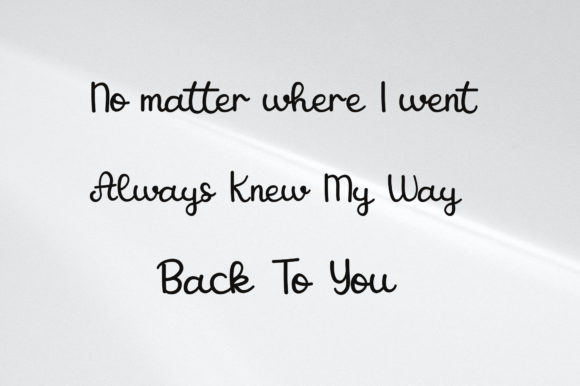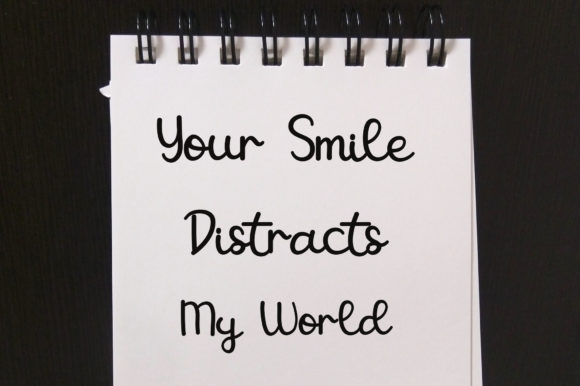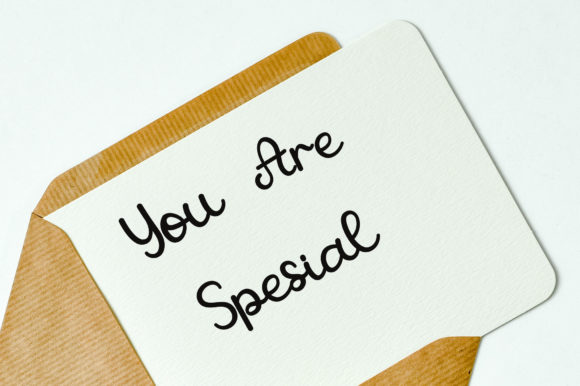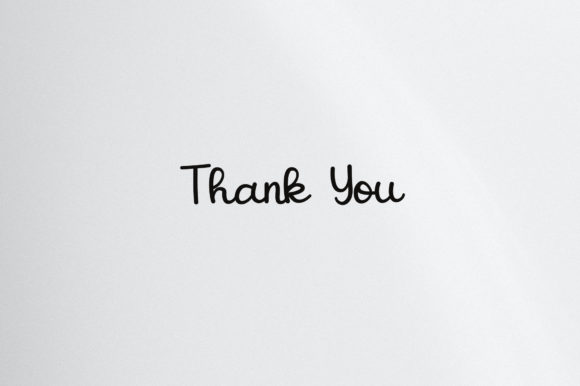
Discover the Charm of Angelina Font: A Sweet and Versatile Handwritten Delight
Are you on the hunt for a font that can add a touch of warmth and romance to your design projects? Look no further than Angelina Font, a beautiful, handwritten typeface that is sure to capture your heart. With its sweet, all-round, and flexible design, Angelina is the perfect choice for crafters and designers looking to infuse their work with a sense of joy and whimsy.
The Characteristics of Angelina Font
Angelina Font is a true gem in the world of typography. Its warm, romantic, and jolly design makes it an excellent choice for a wide range of projects, from wedding invitations and party decorations to branding and advertising materials. This font is designed to turn each of your project ideas into real works of art, and with its endless variations, you’ll have countless opportunities to experiment and explore.
One of the standout features of Angelina Font is its flexibility. Whether you’re looking to create a bold statement or a more subtle design, this font can adapt to your needs with ease. Its handwritten style gives it a personal and approachable feel, making it perfect for designers who want to add a touch of personality to their work.
The Benefits of Using Angelina Font
So, what makes Angelina Font so special? Here are just a few benefits of using this beautiful typeface in your design projects:
- Unique and eye-catching design: Angelina Font is a true standout in the world of typography. Its sweet and jolly design makes it an excellent choice for designers who want to create something truly unique and eye-catching.
- Endless variations: With Angelina Font, you’ll have countless opportunities to experiment and explore. Whether you’re looking to create a bold statement or a more subtle design, this font can adapt to your needs with ease.
- Perfect for a wide range of projects: From wedding invitations and party decorations to branding and advertising materials, Angelina Font is the perfect choice for a wide range of design projects.
- Easy to use and customize: Angelina Font is easy to use and customize, making it perfect for designers of all skill levels.
How to Use Angelina Font in Your Design Projects
So, how can you use Angelina Font in your design projects? Here are a few ideas to get you started:
- Wedding invitations and party decorations: Angelina Font is a perfect choice for wedding invitations, party decorations, and other celebratory materials. Its warm and romantic design makes it an excellent choice for creating a sense of joy and whimsy.
- Branding and advertising materials: Whether you’re looking to create a logo, brochure, or social media graphics, Angelina Font is a great choice for branding and advertising materials. Its unique and eye-catching design makes it an excellent choice for standing out in a crowded market.
- Digital and print materials: Angelina Font can be used in a wide range of digital and print materials, from e-books and magazines to posters and flyers.
Tips and Tricks for Getting the Most Out of Angelina Font
Here are a few tips and tricks for getting the most out of Angelina Font:
- Experiment with different sizes and colors: Don’t be afraid to experiment with different sizes and colors when using Angelina Font. This will help you to create a unique and eye-catching design that stands out from the crowd.
- Use it in combination with other fonts: Angelina Font can be used in combination with other fonts to create a unique and visually appealing design.
- Pay attention to spacing and kerning: Make sure to pay attention to spacing and kerning when using Angelina Font. This will help you to create a clean and professional-looking design.
In conclusion, Angelina Font is a sweet, all-round, and flexible handwritten font that is sure to capture your heart. With its warm, romantic, and jolly design, it’s the perfect choice for crafters and designers looking to infuse their work with a sense of joy and whimsy. Whether you’re looking to create a bold statement or a more subtle design, Angelina Font is the perfect choice for a wide range of design projects.